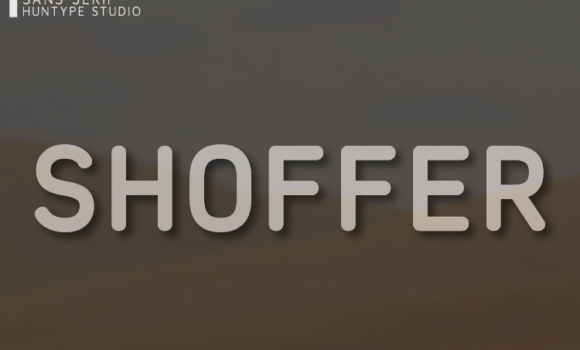
shoffer
Shoffer Font – Free Download Introduction to Shoffer Font Shoffer is a distinct and elegant sans serif font that blends traditional influences into a contemporary aesthetic. 📸 Preview Gallery 1 image 📌 Product Name Shoffer Font 👤 Author Huntype 📂